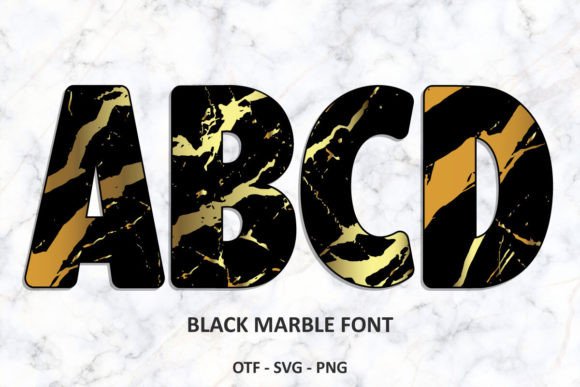
Introducing Black Marble Font: Elevate Your Designs with Elegance
Have you ever been in the middle of a design project, and suddenly, you’re stuck on finding the perfect font? I recall a recent experience where I was working on an invitation for a friend’s wedding. The theme was classic elegance, and I was determined to find a font that would match the grandeur of the event. That’s when I stumbled upon the stunning “Black Marble Font”.
This beautiful alphabet set combines the majesty of black marble with the allure of golden accents, making it perfect for various design projects, including invitations, scrapbooking, websites, blogs, cards, greeting cards, party decorations, and more. The possibilities are endless!
A Closer Look: What I Love About Black Marble Font
• ✨ Elegant and sophisticated design: The black marble texture and golden accents give this font a luxurious feel that’s perfect for high-end designs.
• ✅ Versatile: Use it for digital projects, print materials, or even sublimation printing on mugs and other items.
• 🌟 Easy to read: Despite its ornate design, the font remains clear and legible, making it suitable for body text and headings.
While I adore Black Marble Font, there are a few things to keep in mind:
The Story Behind Black Marble Font
The inspiration for Black Marble Font came from the grandeur of ancient Greek and Roman architecture. The designers aimed to capture the essence of black marble’s sleek, sophisticated appearance and combine it with the luxury of golden accents. The result is a font that’s both elegant and eye-catching.